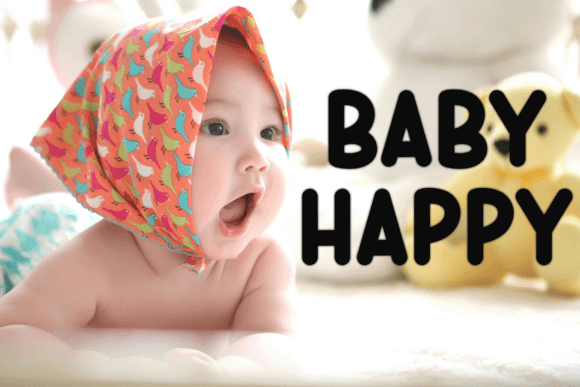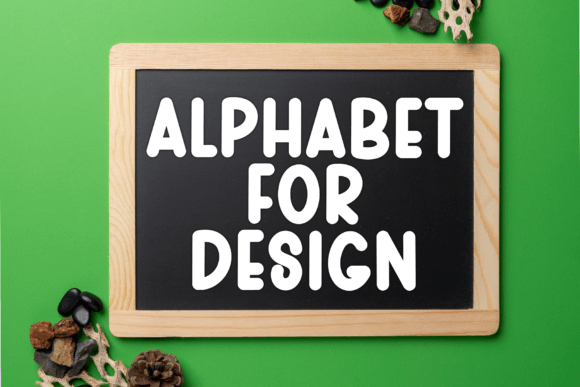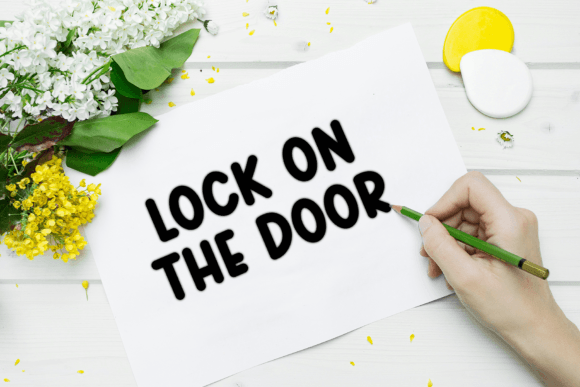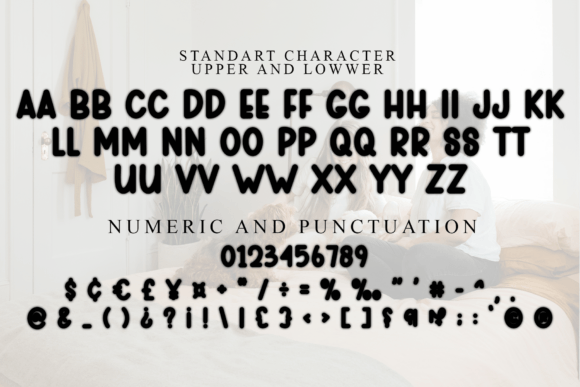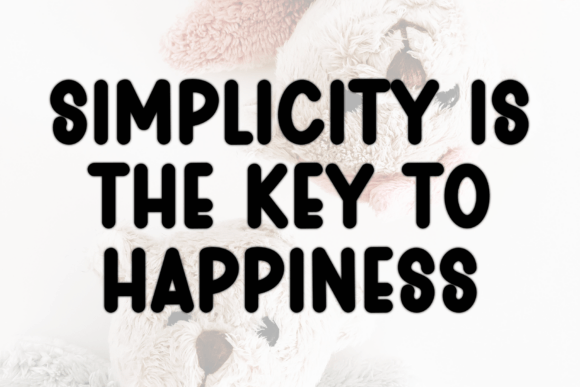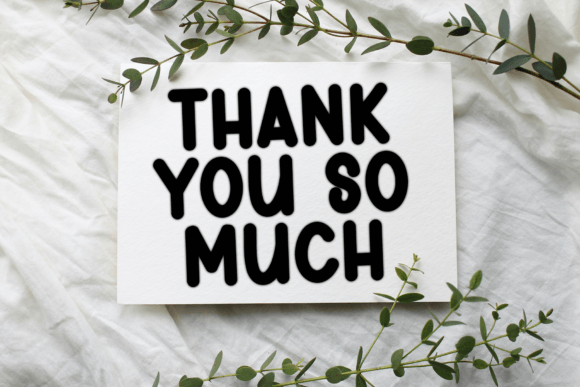
The Perfect Blend of Style and Sophistication: Baby Genius Font
Have you ever found yourself scrolling through social media, mesmerized by a beautifully designed post, and wondering what font they used? I know I have! As creatives, we’re always on the lookout for the perfect font to elevate our designs and leave a lasting impression. For me, that font is the Baby Genius Font. Its elegant strokes and natural flow create a captivating look that’s perfect for adding a personal touch to invitations, branding, or social media.
Whether you’re a seasoned designer or just starting out, the Baby Genius Font is a valuable addition to your toolkit. Its versatility and charm make it an ideal choice for a wide range of designs, from weddings and baby showers to personal branding and marketing materials.
Baby Genius Font Key Features
• Font Family: Baby Genius is a custom-designed font family, offering a range of styles and weights to cater to various design needs.
• Unique Characteristics: The Baby Genius font features a playful, whimsical design with rounded edges and soft curves, making it perfect for children’s educational materials, nursery decor, and other applications where a friendly, approachable tone is desired.
Design Review: Baby Genius Font
Overall, the Baby Genius Font is a unique and playful typeface that can add a touch of whimsy to your designs. ✨ One of its strongest features is its large x-height, which makes it perfect for use in titles and headings where readability is crucial. The font also has a clear and legible design, making it easy to read even at smaller font sizes.
Additionally, the font has a fun and energetic feel to it, which can be perfect for designs aimed at a younger audience. The font’s playful characteristics can add a sense of excitement and curiosity to your designs.
• ⚠️ The font may be too childish for some designs, which could limit its use in more formal or professional contexts.
• ⚠️ The font’s large x-height can make it feel somewhat overwhelming in smaller font sizes or when used extensively in text-heavy designs.
• ⚠️ The font’s playful characteristics may not be suitable for designs that require a more serious or sophisticated tone.
Overall, the Baby Genius Font is a great choice for designs that require a playful and energetic feel. While it may have some limitations, its unique characteristics can add a touch of personality to your designs and make them stand out from the crowd.
Tips for Getting the Most Out of Baby Genius Font
For the best results, use Baby Genius Font in bold or italic styles to add emphasis and visual interest to your designs. You can also pair it with other fonts to create a unique and playful look.
Baby Genius Font is perfect for:
• Children’s educational materials
• Party invitations and decorations
• Children’s clothing and accessories
Playfair Display is a luxurious serif font that can be used for high-end designs, such as luxury branding, fashion magazines, and fine art prints. It features elegant and ornate details, making it perfect for adding sophistication and glamour to your designs.
Compared to Baby Genius Font, Playfair Display is more formal and less playful. While Baby Genius Font is designed for children’s content, Playfair Display is ideal for upscale and sophisticated projects.
Great Vibes is a beautiful script font that can be used for creative and artistic designs, such as wedding invitations, greeting cards, and advertising campaigns. It features a flowing and elegant style, making it perfect for adding a touch of sophistication and elegance to your designs.
Q: What is the recommended font size for optimal readability with Baby Genius Font?
For optimal readability, we recommend using the Baby Genius Font at font sizes between 12pt and 24pt. This range provides a clear and engaging reading experience, while also ensuring that the font remains legible at various distances and screen resolutions.